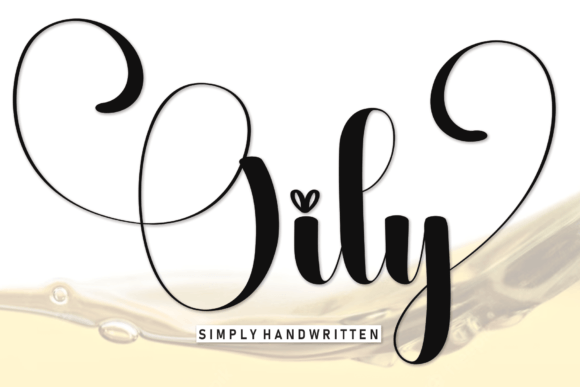
In a world of digital expression, fonts hold the power to transform the ordinary into the extraordinary. They are the unseen artists, the silent storytellers, weaving their magic into every word, every design, and every creation. Meet Oily Font, a flowing handwritten font that dances across the digital canvas with an elegant touch, perfect for your most cherished projects.
Imagine your wedding invitations, adorned with Oily's graceful curves and delicate flourishes. Each letter becomes a brushstroke of love, a testament to the timeless bond you share. Your guests will be captivated by the beauty of your words, the elegance that speaks of your commitment and joy.
Oily Font is more than just a collection of letters; it's an expression of your individuality, a reflection of your unique style. Let your creativity soar as you craft logos that demand attention, social media posts that pop, and marketing materials that leave a lasting impression. With Oily by your side, your designs will radiate sophistication and charm that will set you apart from the crowd.
Welcome to a world where fonts are not merely tools but works of art. Oily Font is your gateway to this world, a font that captures the essence of romance, elegance, and timeless beauty. Its flowing lines and graceful curves will add a touch of magic to your creations, transforming them into masterpieces that speak volumes.
Unlock the captivating beauty of Oily Font today and embark on a creative journey that will leave you and your audience spellbound. Let your imagination run wild as you explore the endless possibilities that await you with Oily by your side.